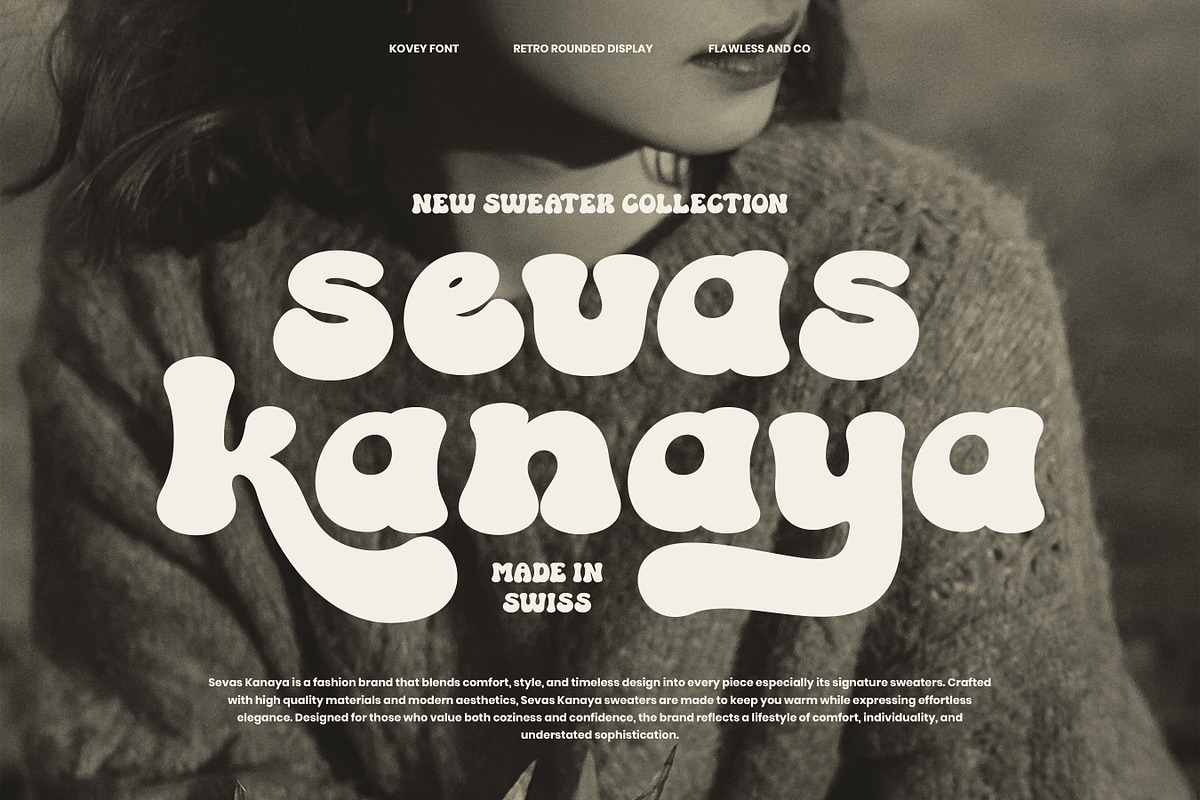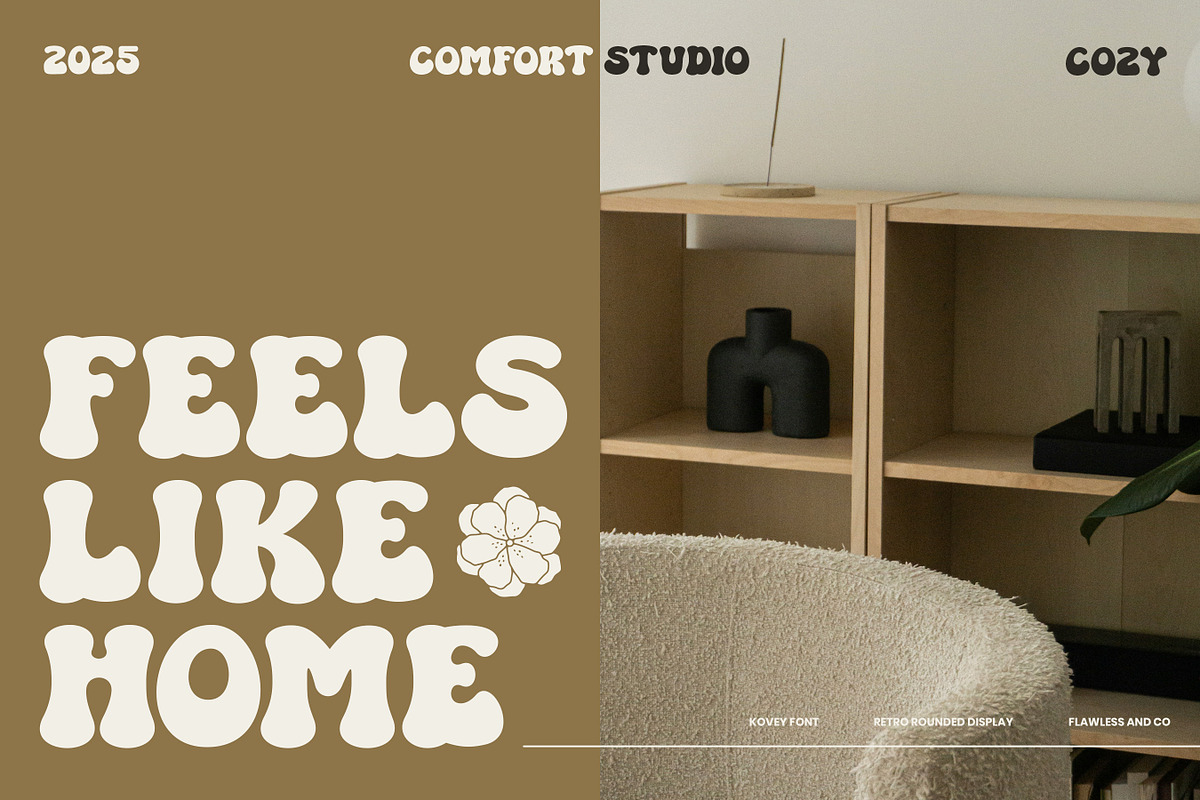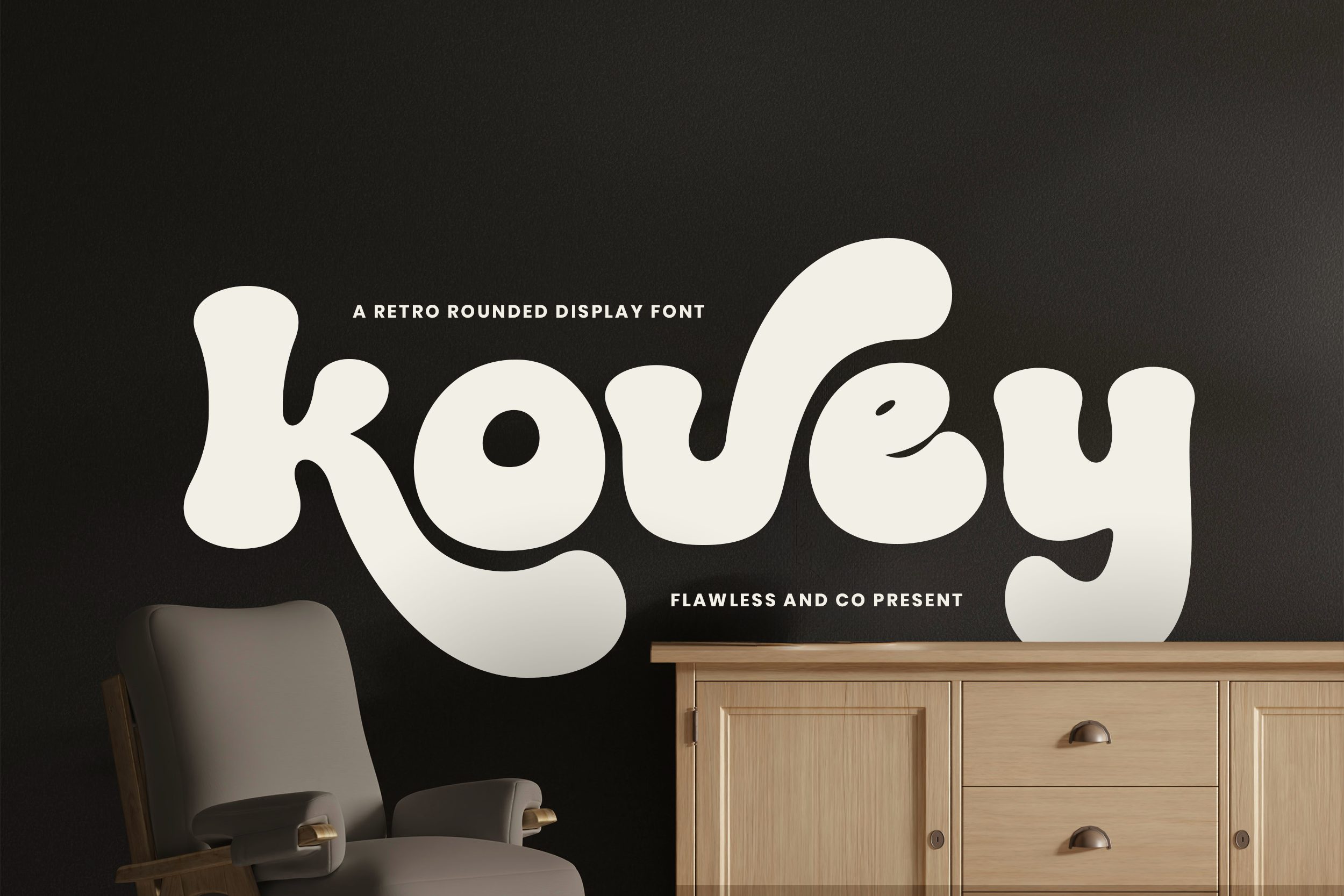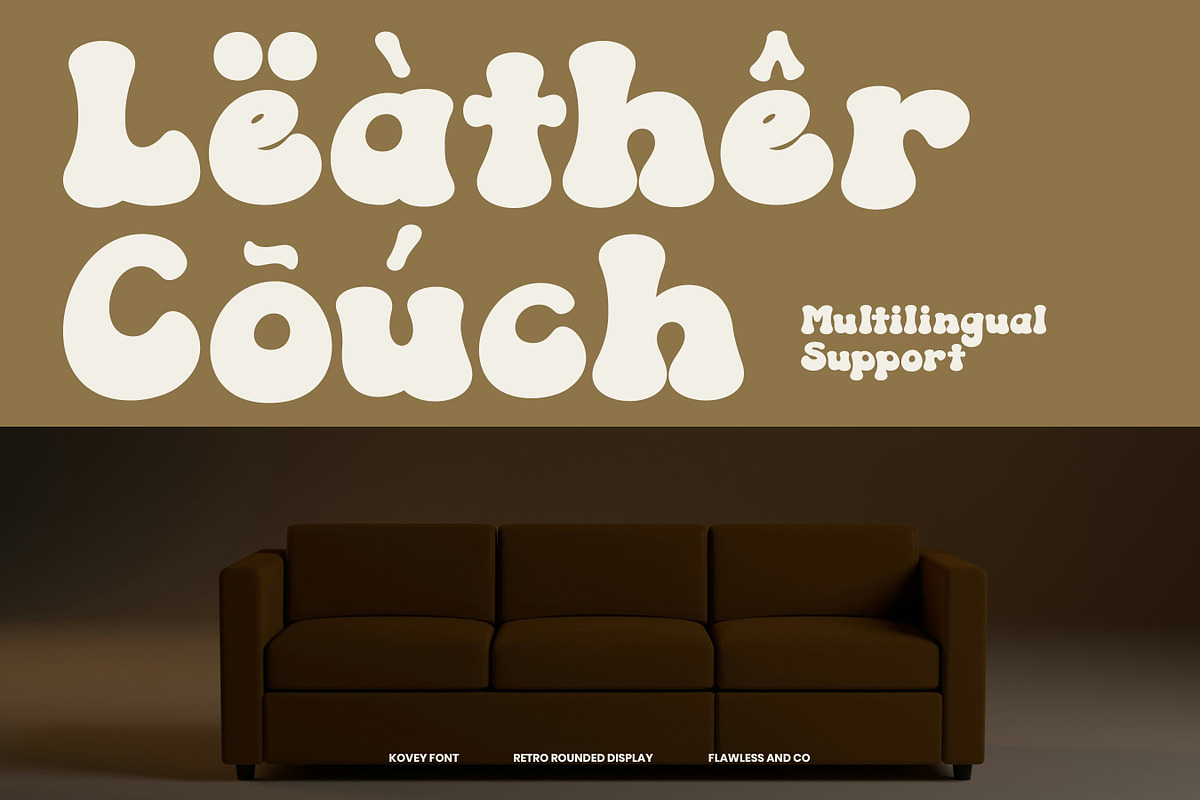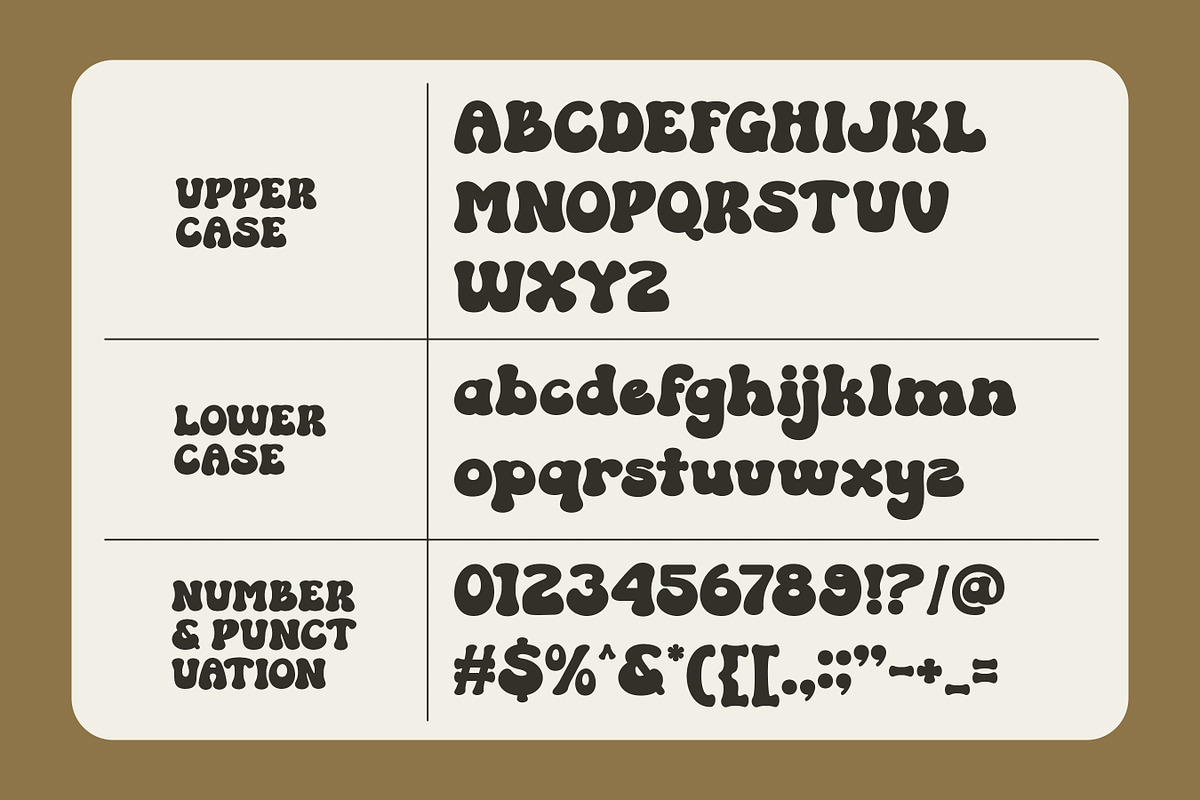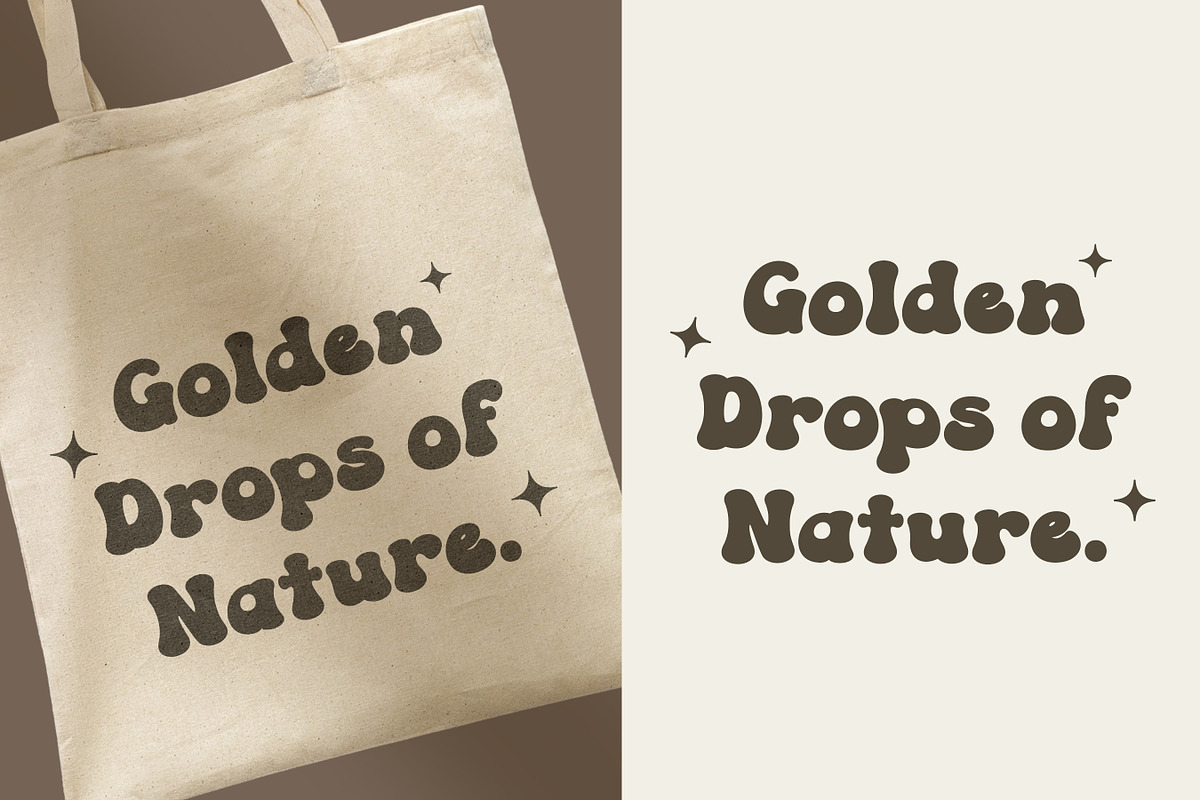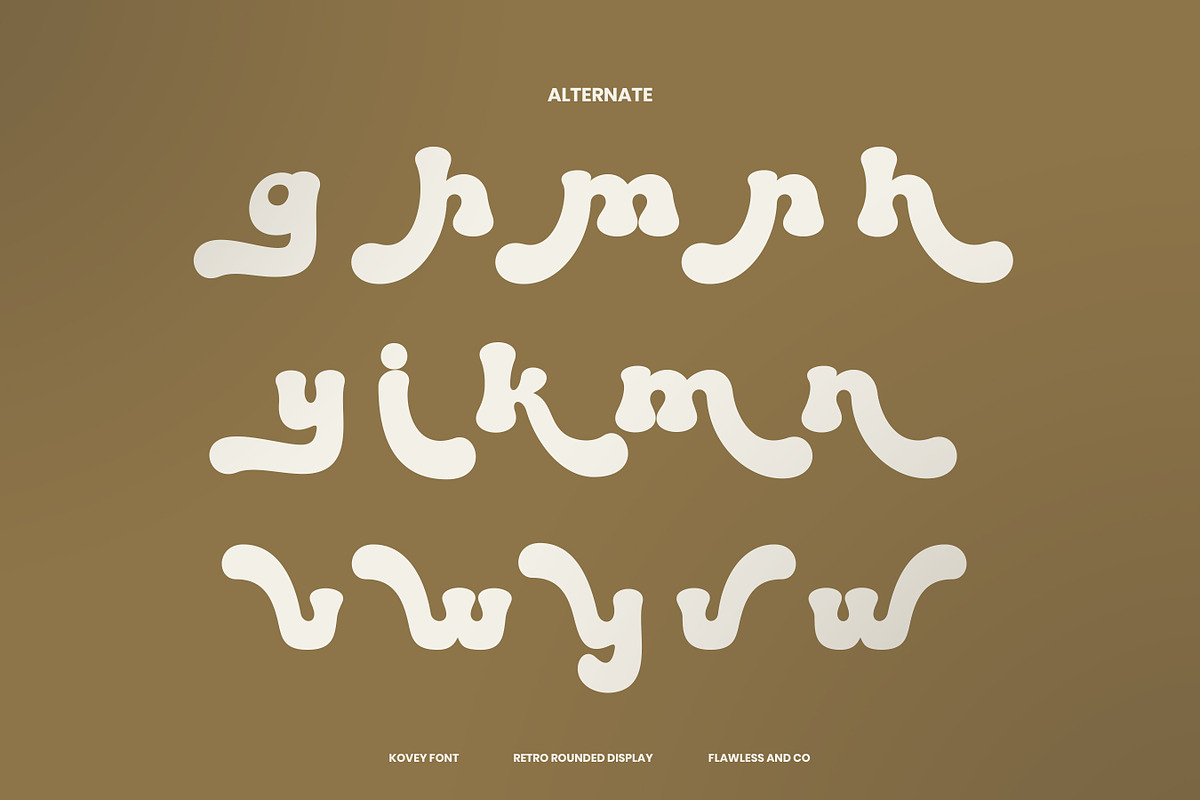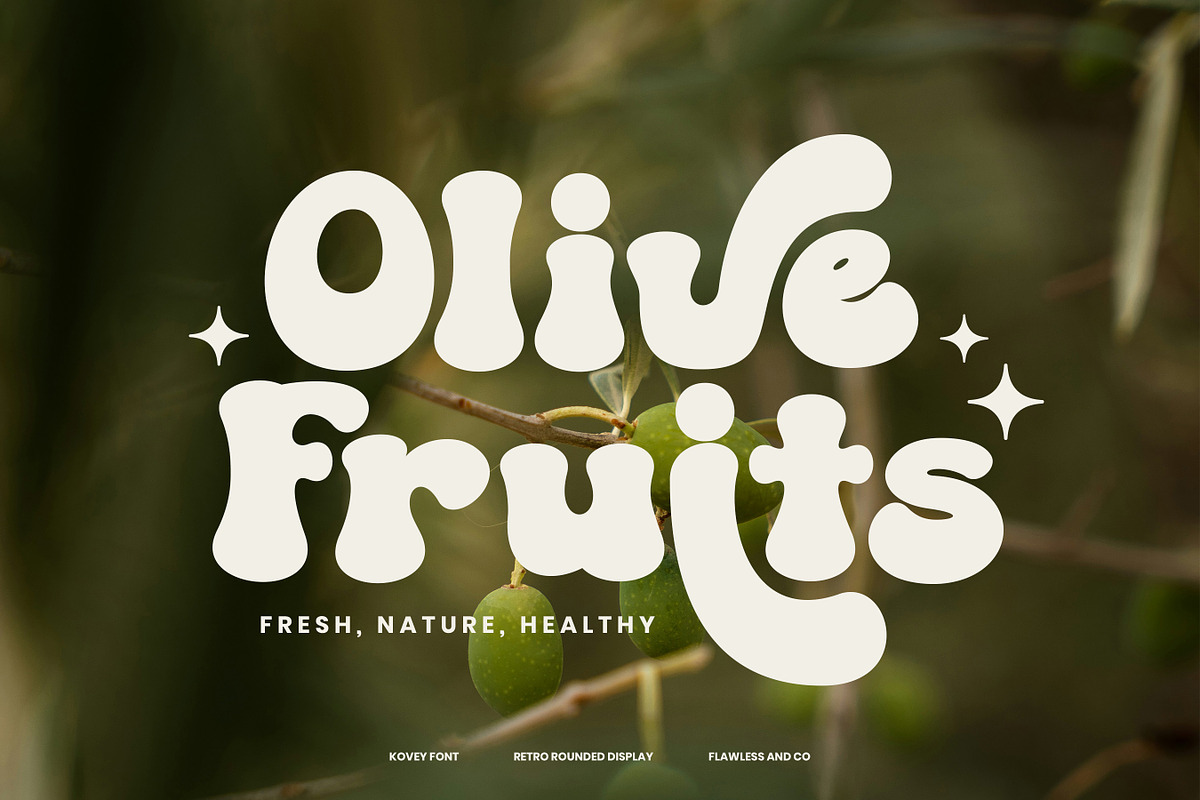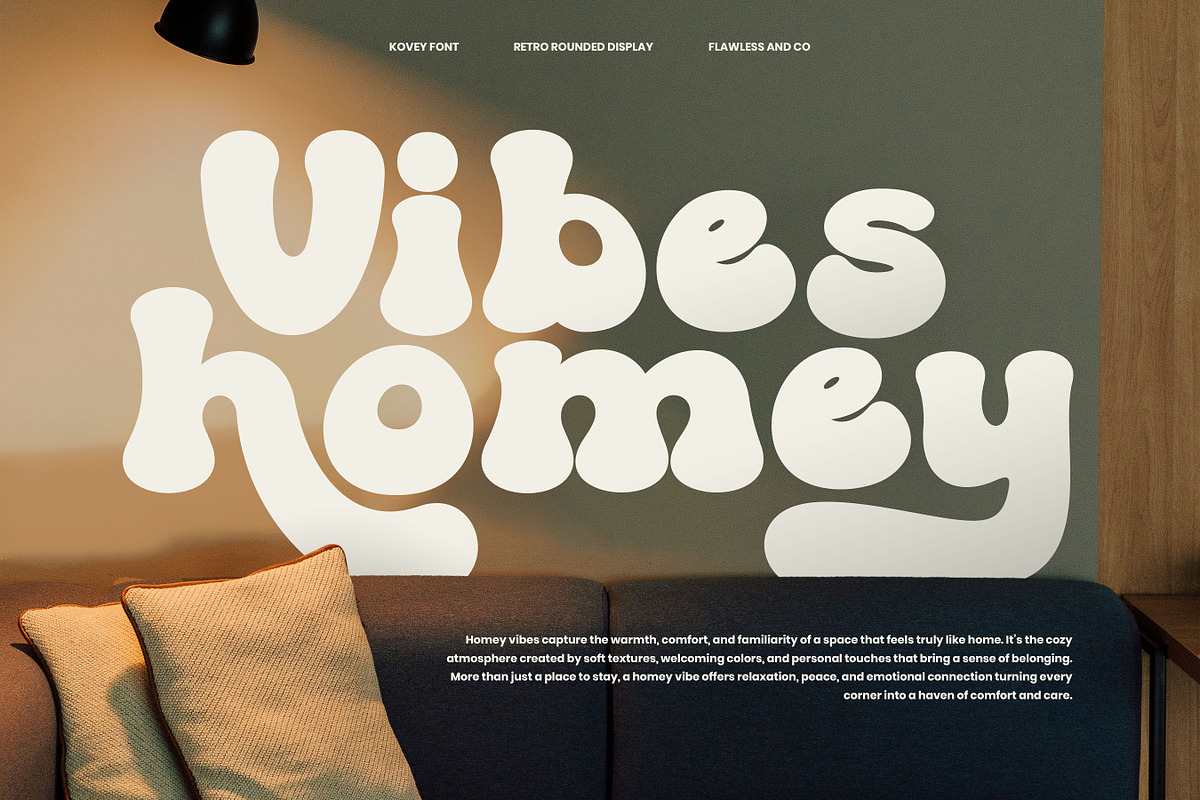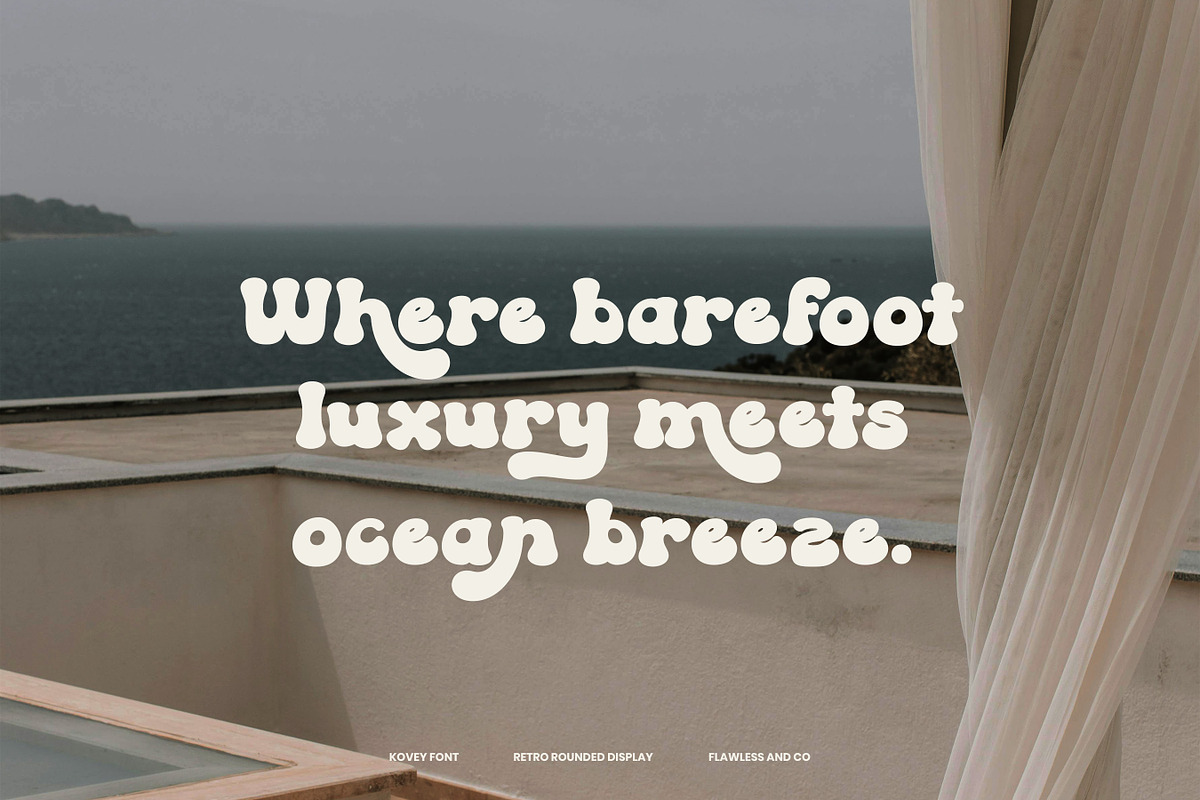
Kovey - Retro Display Font
Kovey - Retro Display Font Kovey is a bold and playful retro display font that brings groovy vibes and nostalgic charm to your designs. With its soft rounded edges and bubbly letterforms, this font captures the essence of vintage aesthetics while staying modern and fresh. Perfect for adding personality and fun, Kovey makes every word feel vibrant and full of life. Whether you’re working on logos, packaging, posters, or social media graphics, Kovey delivers a unique retro touch that instantly grabs attention. Its smooth curves and bold shapes make it versatile for both digital and print projects, ensuring your designs stand out with character and style
Who Should Use Kovey?
Kovey is made for designers, creatives, and brands who want to infuse their projects with retro charm and playful personality.
This font is perfect for:
- Graphic designers crafting bold and fun visual identities
- Branding specialists looking to create standout logos with vintage appeal
- Packaging designers who want to highlight products with a nostalgic touch
- Poster and cover creators aiming for eye-catching, groovy designs
- Social media content creators who love playful and stylish typography
A Must-Have Font for "Brand and Logo" Creators and Designers
Kovey is more than just a retro display font — it’s a creative tool designed to bring boldness, personality, and nostalgia into your branding. With its rounded, playful curves and strong vintage character, Kovey is the perfect choice for designers and creators who want to craft logos and brand visuals that instantly stand out and leave a lasting impression.
Why Choose "Kovey" for "Brand and Logo" Projects?
Kovey combines retro charm with modern versatility, making it an excellent choice for branding projects. Its bold rounded display style gives logos a fun, approachable, and memorable feel while maintaining a strong visual impact. Whether you’re creating a playful brand identity, a nostalgic product line, or a standout logo, Kovey ensures your design carries a unique personality that resonates with audiences and stays timeless.
Suitable For
- Retro-inspired brand identities and logo design
- Product packaging with playful and bold vibes
- Posters, flyers, and event promotions
- Lifestyle and fashion branding projects
- Social media graphics and creative content
- Merchandise, tote bags, and apparel design
- Headlines and titles that demand attention